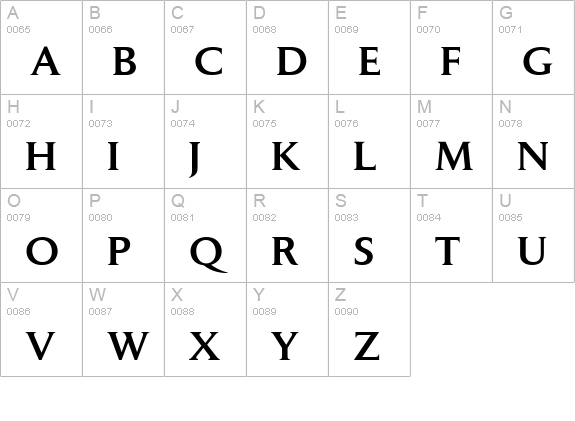
Daily News Medium is a balanced, medium-weight variant in the Daily typeface family \xE2\x80\x94 well suited to sub-headlines, navigation, and balanced editorial work.
Introducing Daily News Medium, a captivating and versatile font that effortlessly combines elegance with functionality. Designed to meet the demands of modern design projects, this typeface is the perfect choice for a wide range of applications, including editorial layouts, branding, headlines, and more. Daily News Medium features a balanced and refined aesthetic, with clean lines and a timeless appeal. Its medium weight strikes the perfect balance between legibility and impact, making it ideal for both print and digital mediums. Whether you're designing a magazine spread, a website header, or a logo, this font will bring a touch of sophistication to your work. The best part? Daily News Medium is completely free! That's right, this high-quality font is freely available to download at FontsMarket.com. Say goodbye to budget constraints and hello to creativity as you effortlessly incorporate this stunning typeface into your projects. With its extensive character set and impeccable attention to detail, Daily News Medium will take your designs to new heights. So why wait? Download Daily News Medium today and unlock a world of design possibilities. Whether you're a professional designer or a DIY enthusiast, this font is sure to become your go-to choice for all your typography needs. Don't miss out on this exceptional opportunity to elevate your designs with a font that is not only visually striking but also free to use. Get your copy of Daily News Medium now and let your creativity soar!